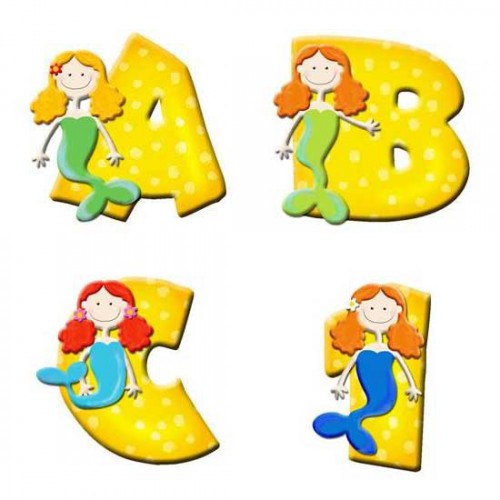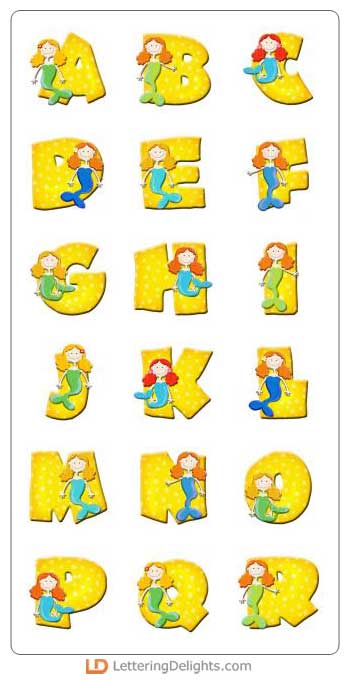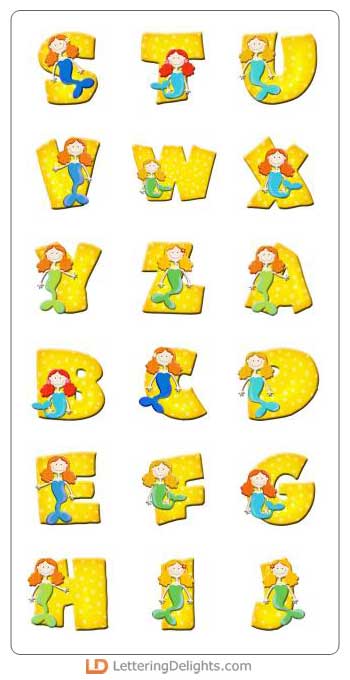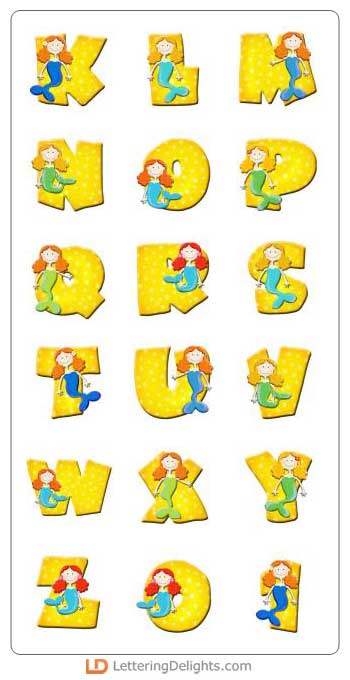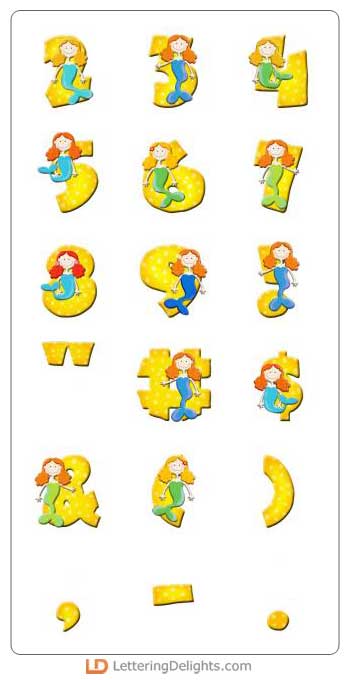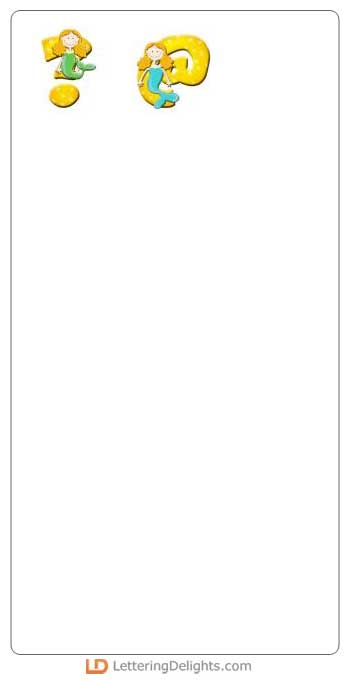
Cute little mermaids smile back from each letter of this alphabet. Put together elaborate under-the-sea party invitations, handmade greeting cards, newsletters, bulletin boards and scrapbooking albums with these letters and the matching journaling set.